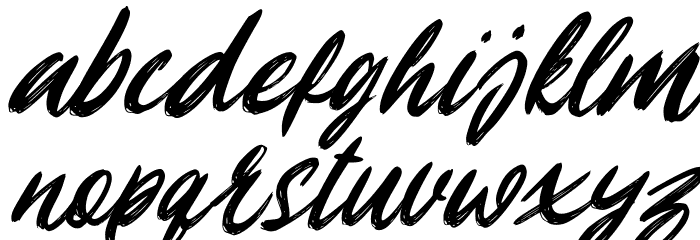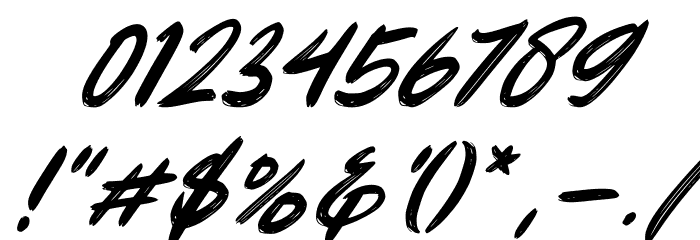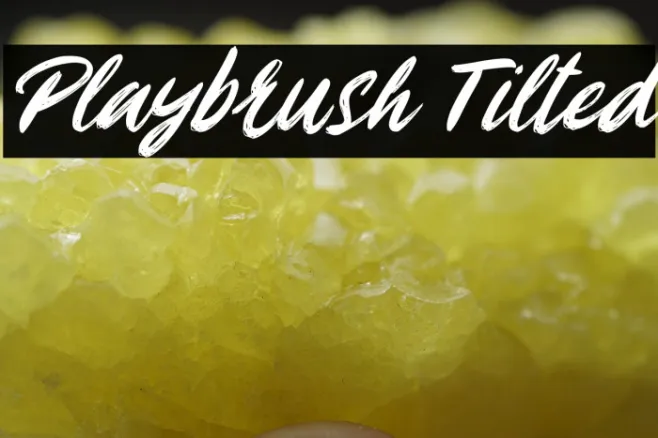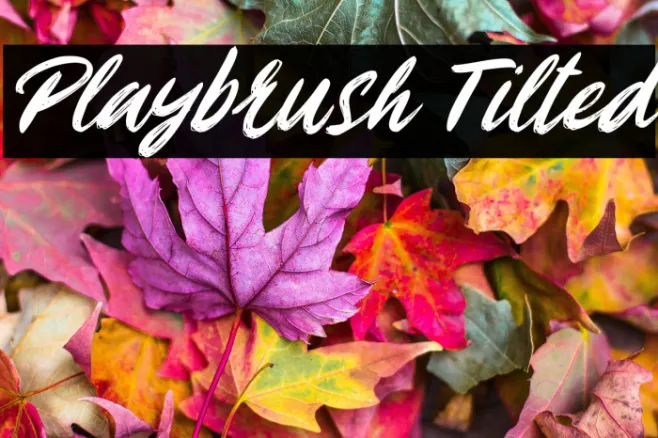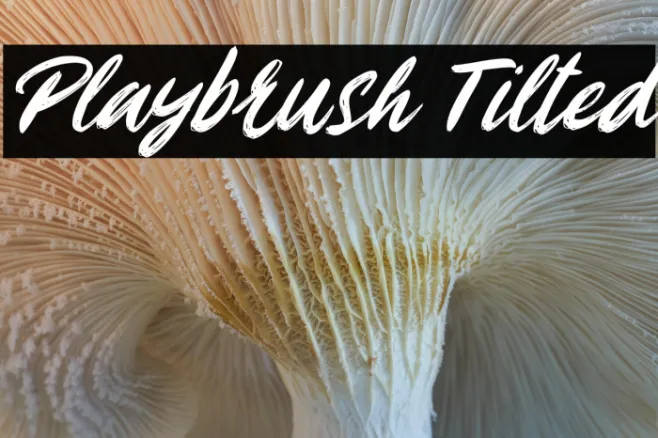
Playbrush Tilted Font
This font features a bold, expressive script style with a dynamic, brush-like appearance. The characters are slanted, giving a sense of movement and energy. Each letter is crafted with thick strokes and varying widths, creating a lively and artistic look. The uppercase and lowercase letters maintain a consistent flow, while the numbers and special characters complement the overall style. The font's design is reminiscent of hand-painted signage, making it ideal for projects that require a personal, creative touch.
A bold, brush-style script font with dynamic, slanted characters.
- Proposed Projects: Ideal for branding, posters, invitations, and any project requiring a creative, artistic flair.